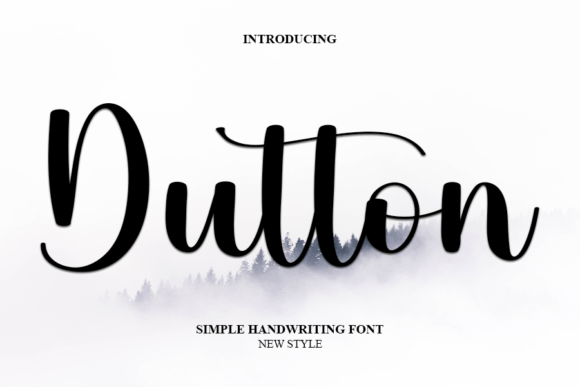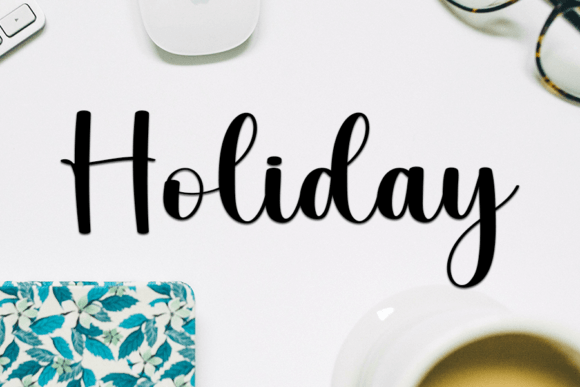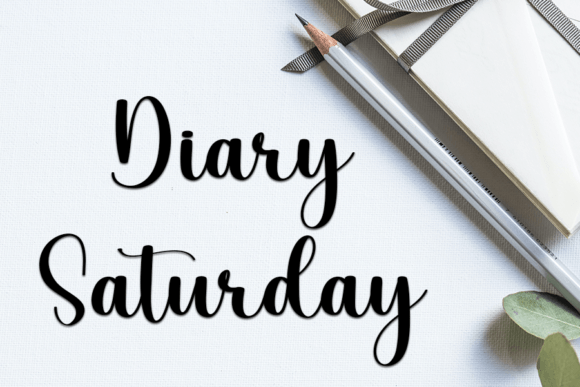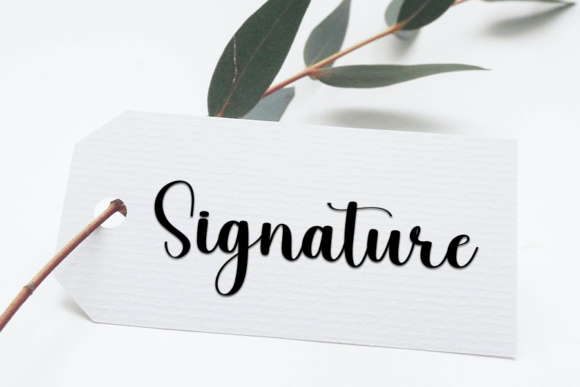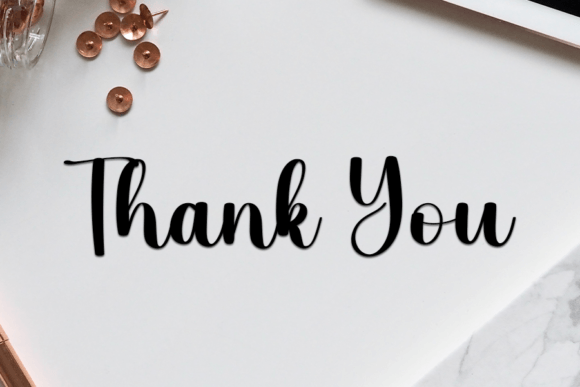
Dutton
About Dutton
Dutton is a delicate handwritten font carefully crafted for a cool and unique design. This font can be used to write letters, invitations, food products, titles and more.